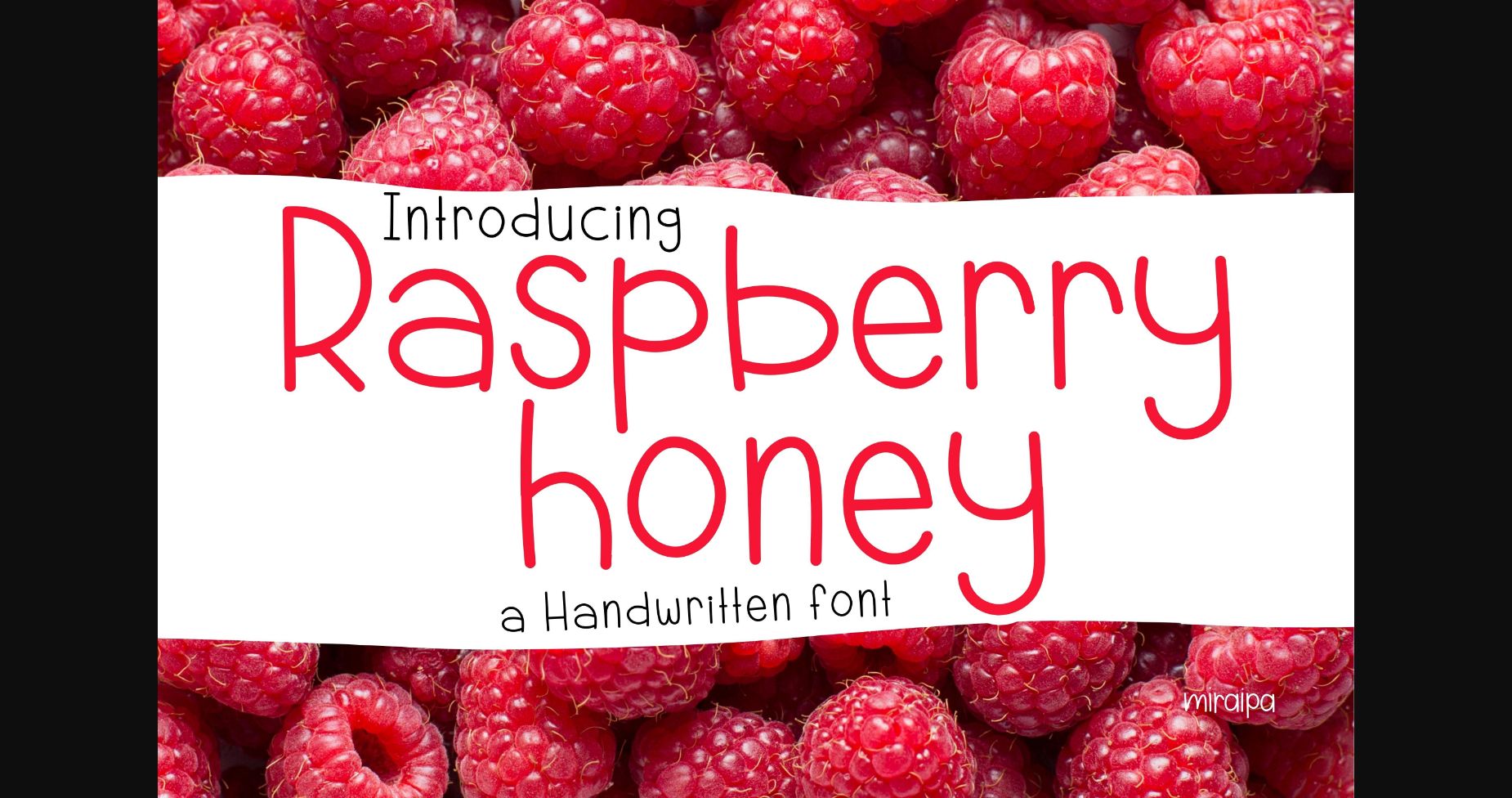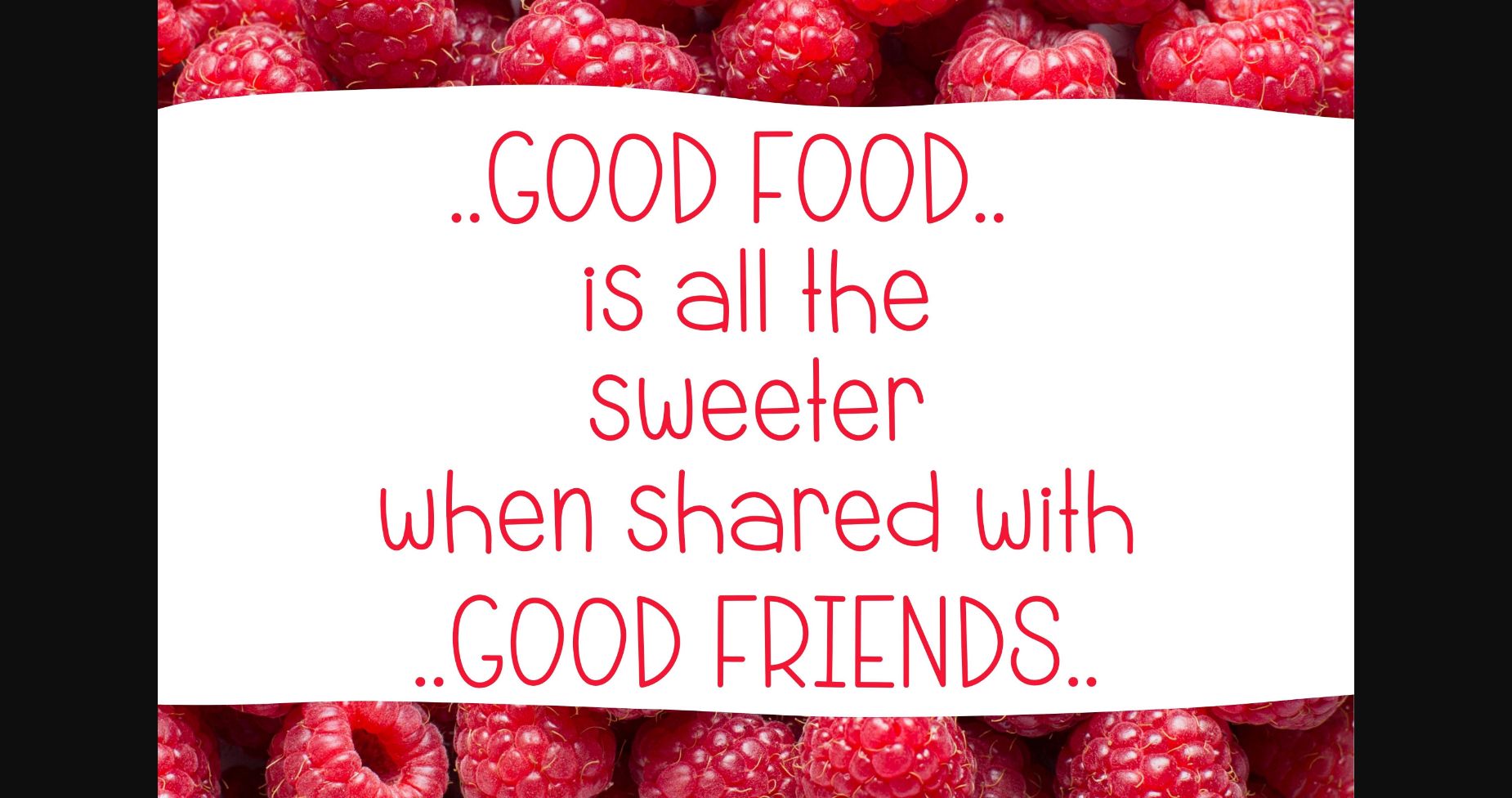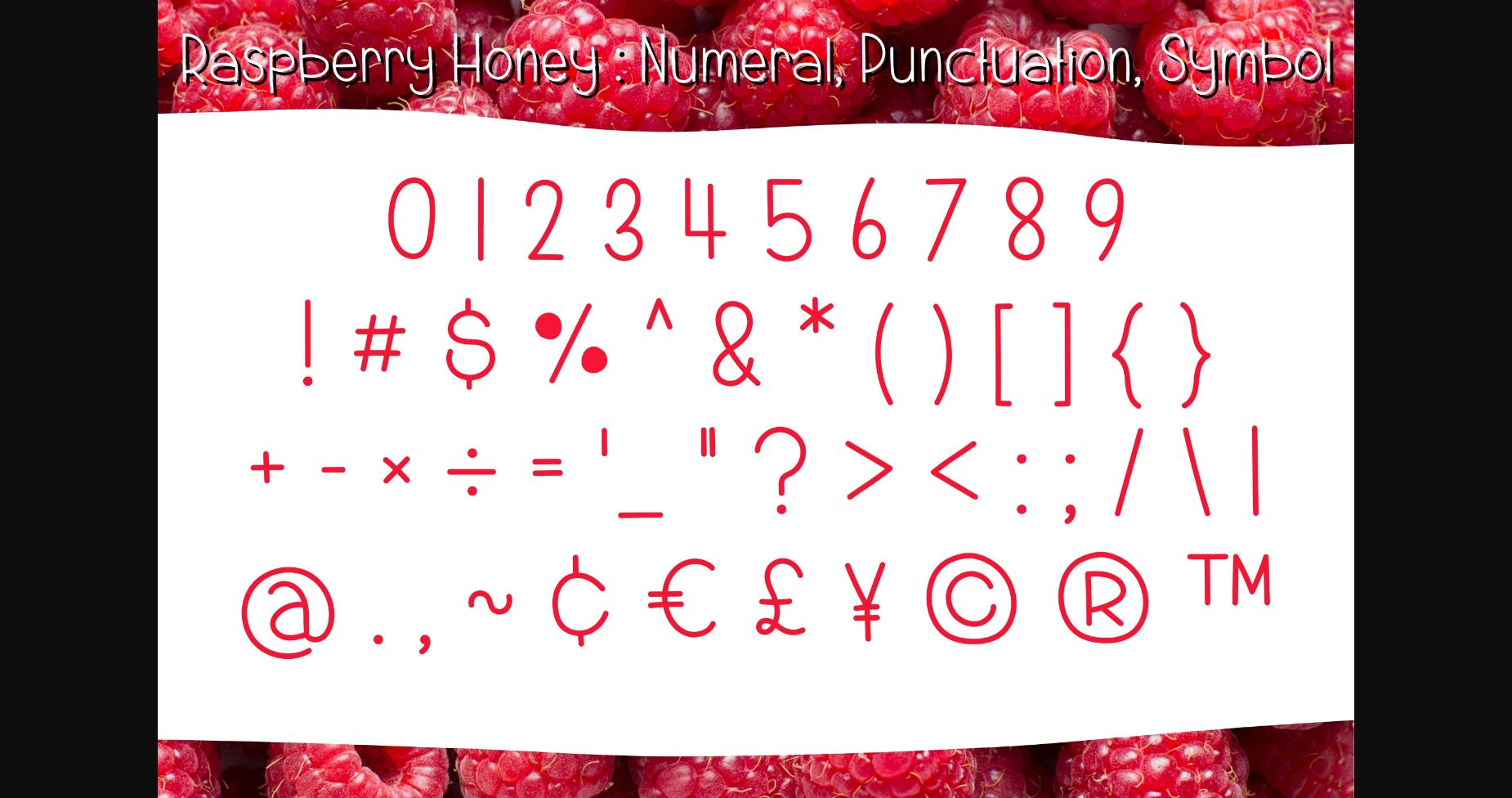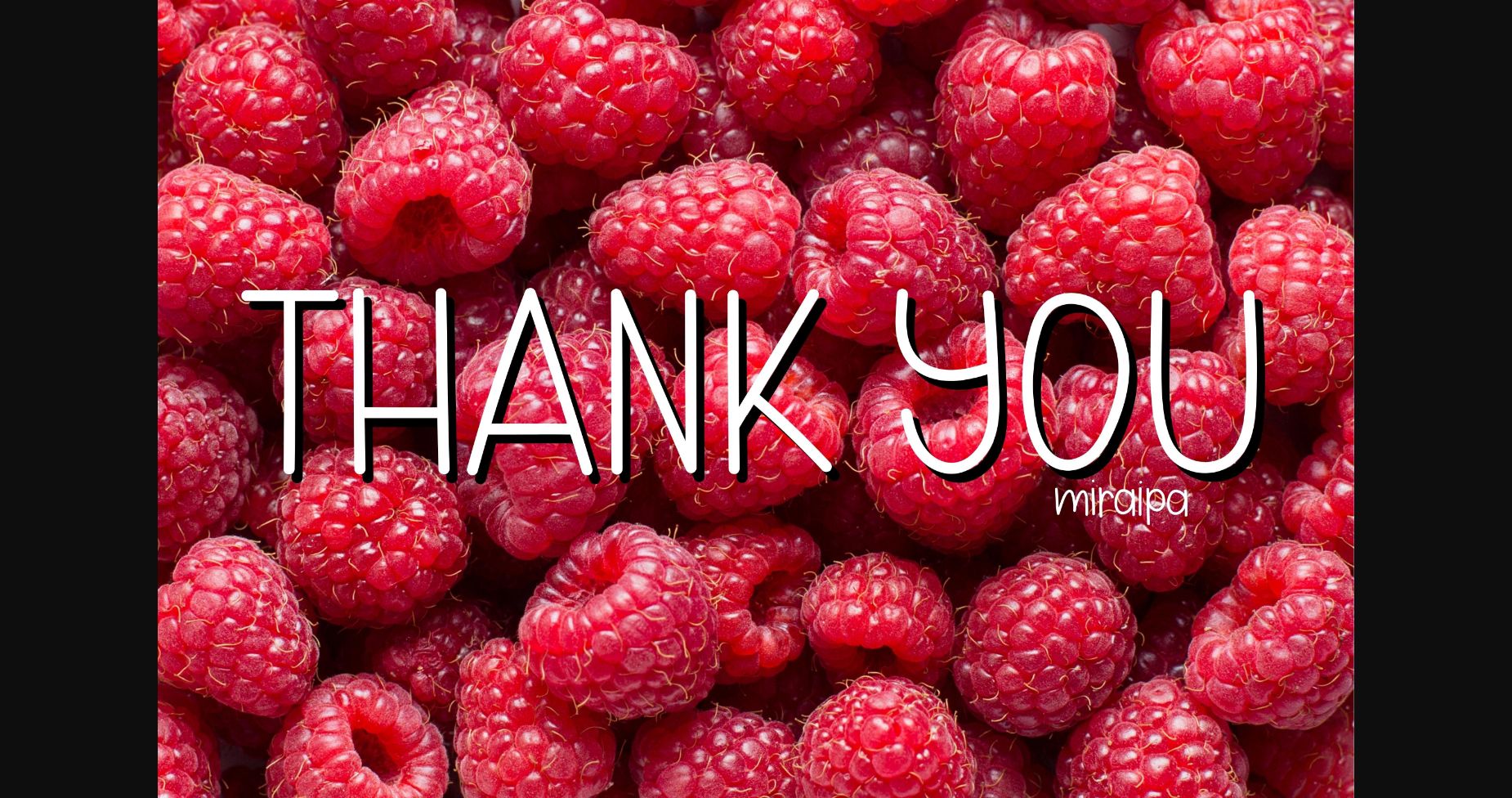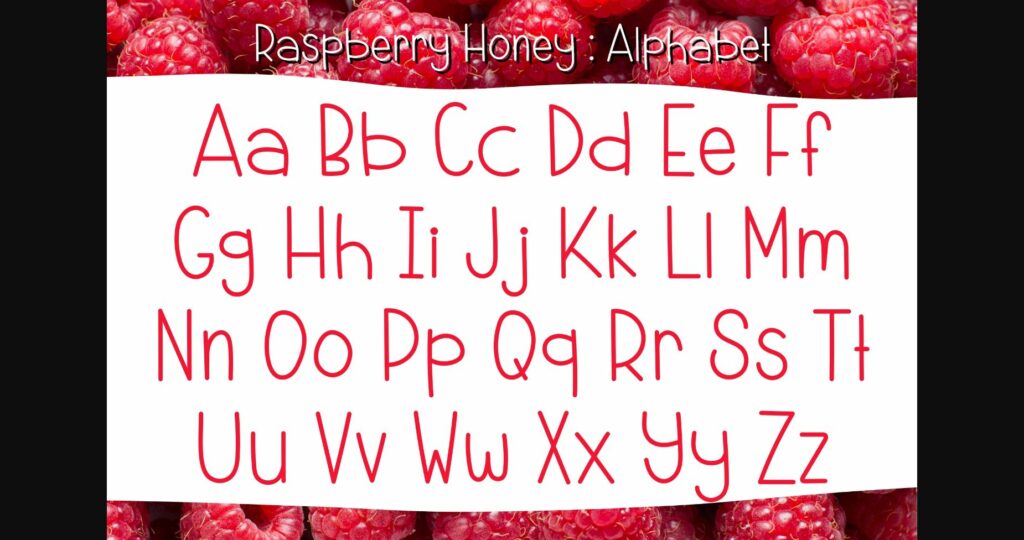
About Raspberry Honey Font
Raspberry Honey is a sans serif font designed in a friendly and lovely style. It would be awesome for your diary planner and journal. It is also great for projects such as back-to-school, wedding, party decoration, invitations, festivals, posters, blogs, clothing, child-related designs, greeting cards, social media posts, or anything that needs a friendly touch. Add it now to your fonts library, and it will bring any of your DIY projects to life.